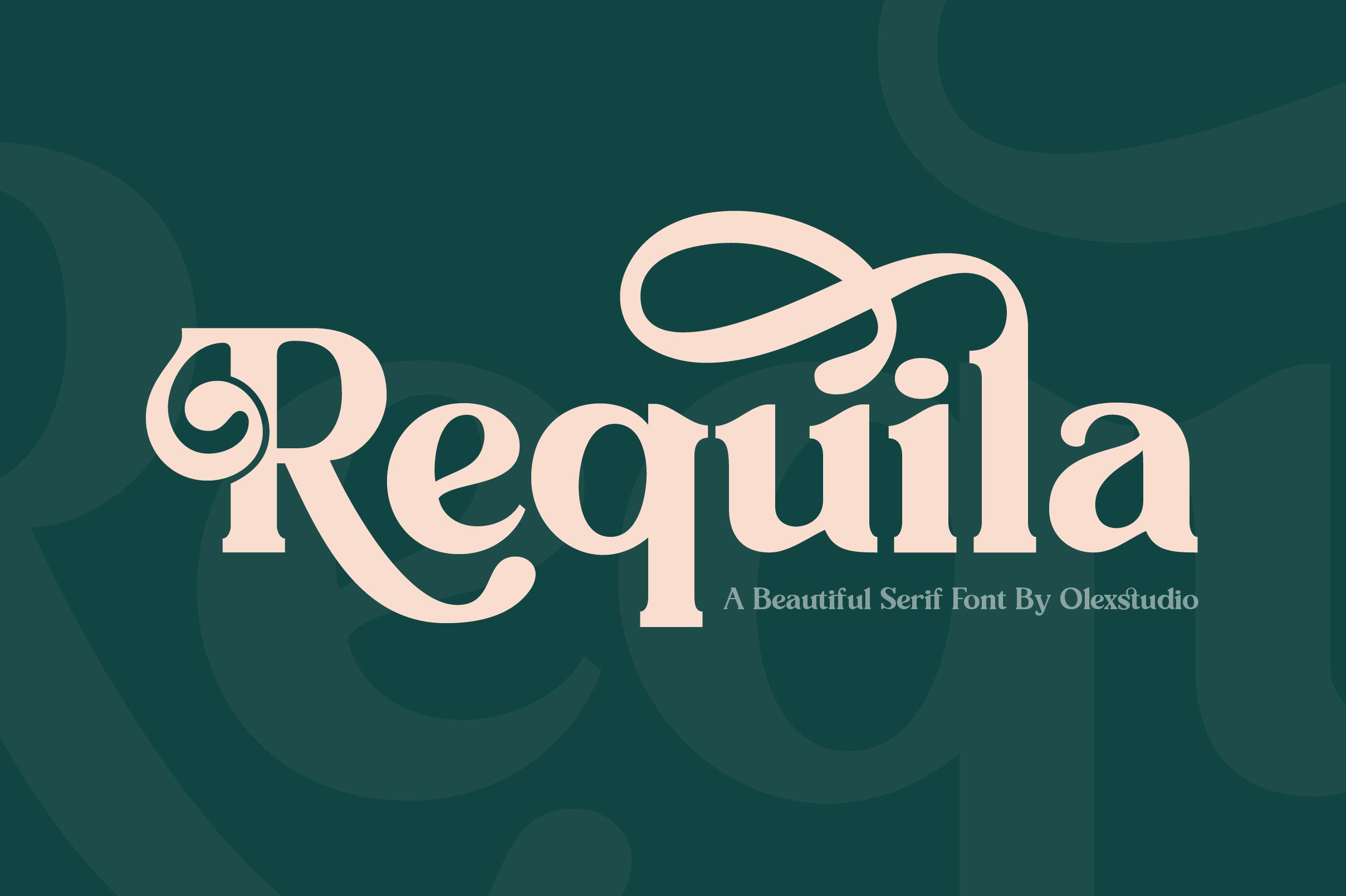
REQUILA - Vintage Font
Requila - Vintage Font
Requila - Vintage Font Serif This Font will look gorgeous on all your designs, invitation, book, branding materials, logo's, t-shirt, poster and all project design other.